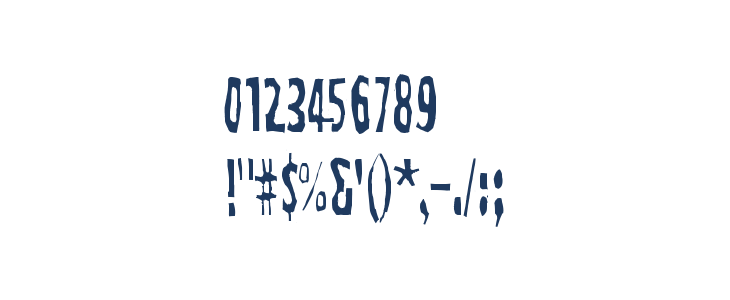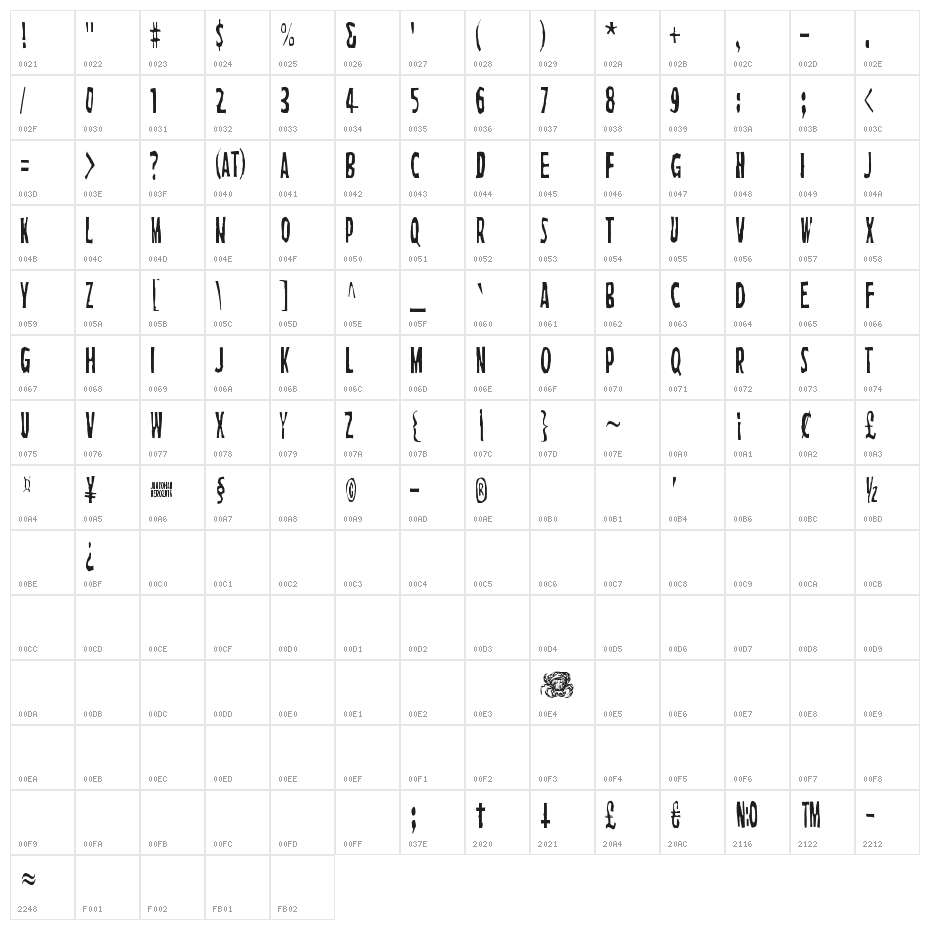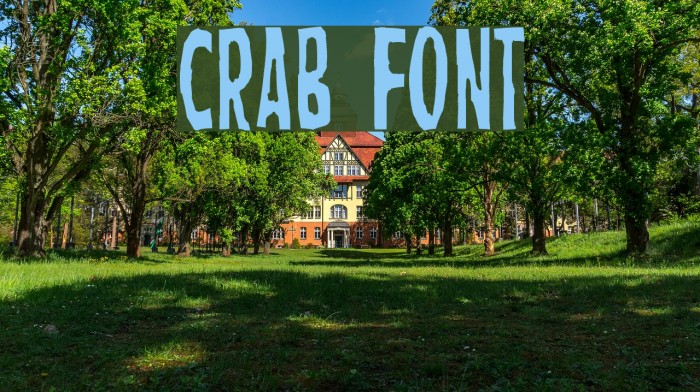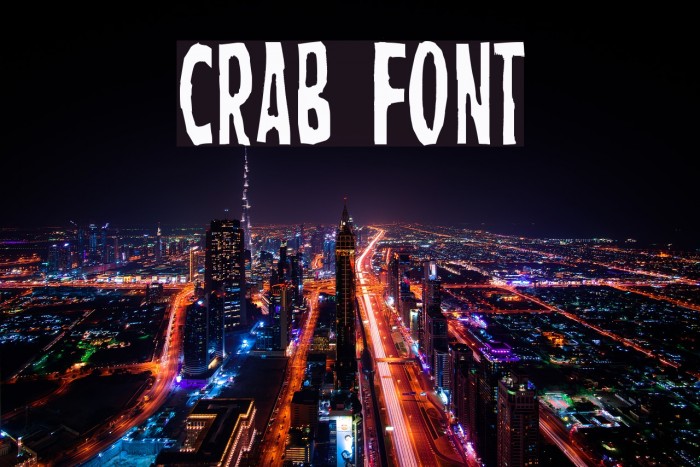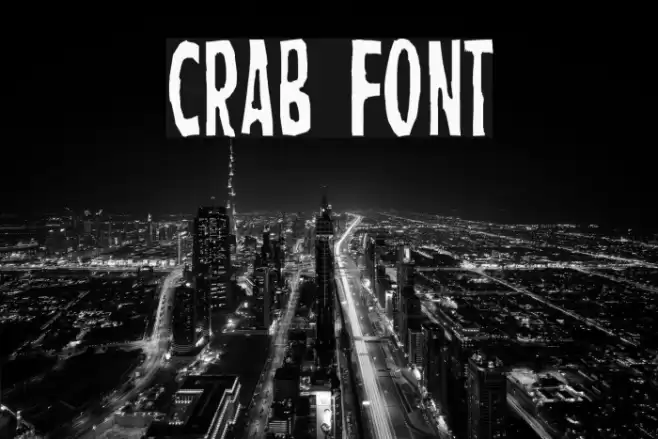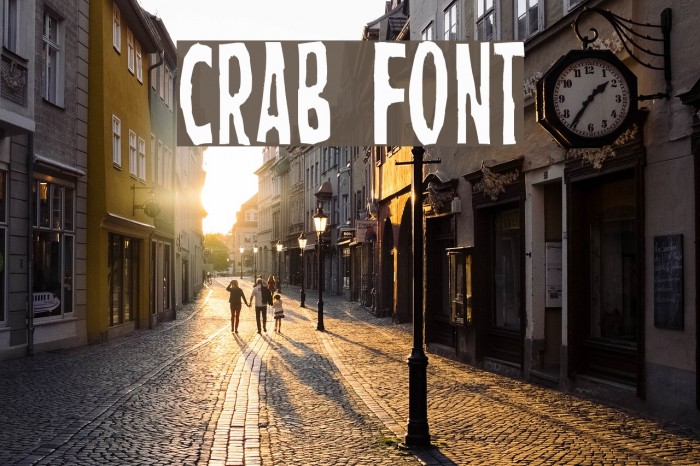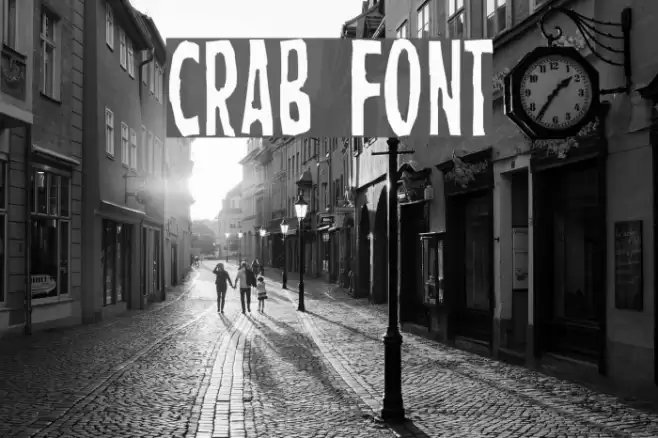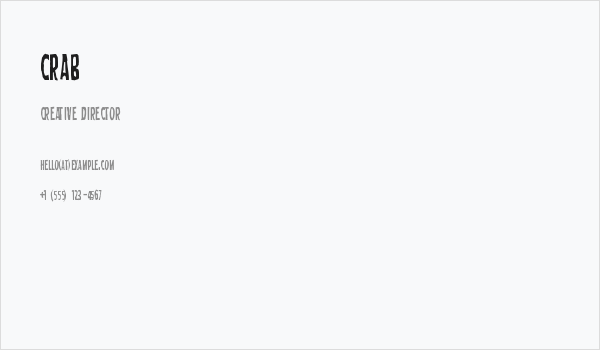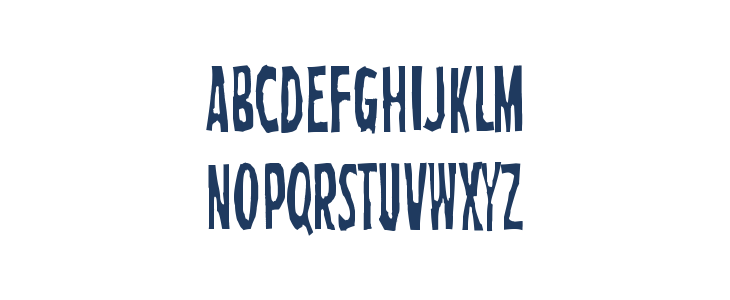
Crab Font
Crab Description
This font features a bold and dynamic design with irregular, jagged edges that give it a hand-crafted, artistic feel. The characters are slightly uneven, adding a sense of movement and energy. The uppercase letters are prominent and assertive, while the lowercase letters maintain the same boldness, creating a cohesive look. Numbers and special characters follow the same style, ensuring consistency across all elements. The font's unique style makes it stand out, making it ideal for projects that require a strong visual impact.
| Proposed Projects | Ideal for posters, album covers, branding, and any project needing a bold, artistic touch. |